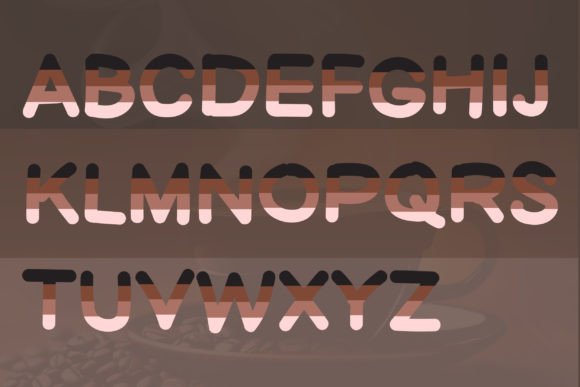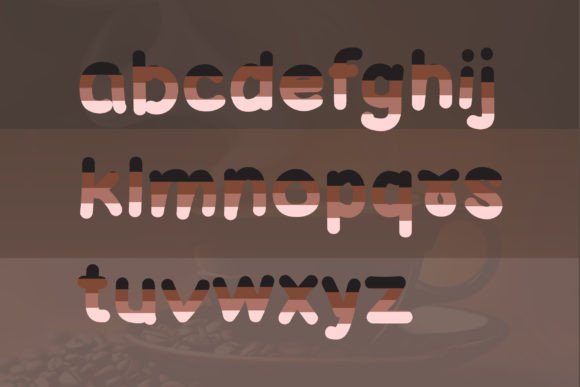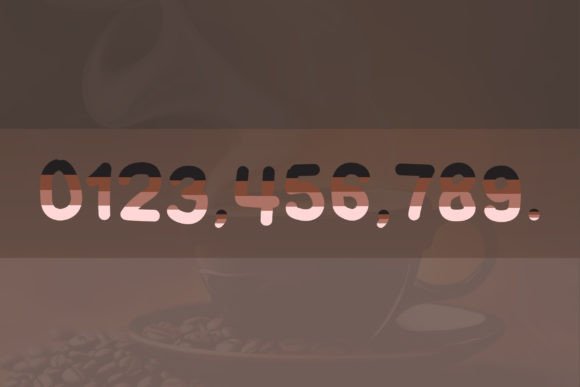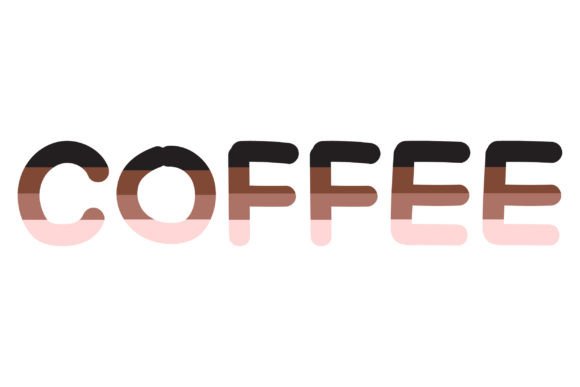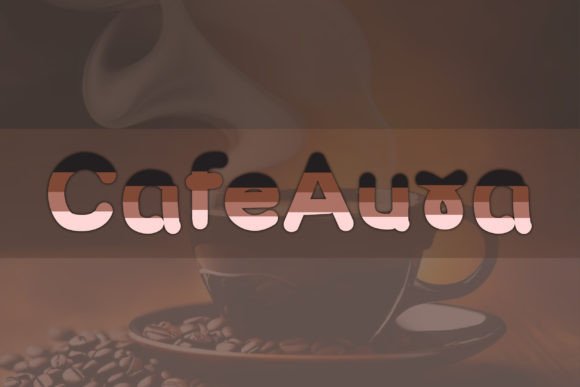
Introducing CafeAura: The Cozy Font that Brews Warmth and Character
Imagine sipping on a rich, velvety cup of coffee on a lazy morning, feeling the warmth spread through your hands and the comfort it brings to your soul. That’s exactly what CafeAura, a thoughtfully crafted font by designer Uzairr, aims to evoke. This artistic creation is not just a typographic innovation but an emotional experience, designed to infuse your written pieces with a sense of coziness and charisma.
The Inspiration Behind CafeAura
CafeAura’s foundational concept revolves around love – simple, yet profound. The font’s design is inspired by the universally cherished moments of sipping a cup of coffee. Just as a favorite brew can range in color from deep browns to creamy whites and rich creams, CafeAura’s palette mirrors this delicious spectrum. The result is a font that doesn’t just look good on paper; it feels good, too.
Design and Features
Crafted with love and precision using Fontself, CafeAura boasts a unique blend of elegance and warmth. Its characters are designed to carry a sense of fluidity and smoothness, reminiscent of the velvety texture of a well-made coffee. Whether you’re working on a branding project, a packaging design, or simply crafting a heartfelt letter, CafeAura adds a touch of personality and warmth to your text.
Key Features of CafeAura:
- Unique and Artistic Design: CafeAura’s distinctive style sets it apart from more conventional fonts, offering a fresh and creative approach to typography.
- Warm and Inviting: The font’s design elements evoke a sense of comfort and coziness, perfect for projects that aim to connect with the audience on a personal level.
- Versatile: Suitable for a wide range of applications, from digital content and advertising to print materials and handmade crafts.
- Easy to Read: Despite its artistic flair, CafeAura maintains a high level of readability, making it practical for both short phrases and longer texts.
Using CafeAura in Your Projects
- Branding and Logos: Create a memorable brand identity with a unique and recognizable typographic style.
- Digital and Print Media: Enhance your website content, social media posts, brochures, and flyers with a touch of warmth and elegance.
- Crafting and DIY Projects: Add a personal touch to your handmade crafts, such as journals, cards, and invitations.
Why Choose CafeAura?
In a world where digital content is king, standing out can be challenging. CafeAura offers a unique opportunity to differentiate your brand or personal projects with a distinctive and engaging font. Its universal appeal, rooted in the love for coffee and comfort, ensures that your message is not just seen but also felt.
CafeAura is more than just a font; it’s an experience. It’s about capturing the simple pleasures in life and expressing them through design. With CafeAura, you don’t just write; you brew a story, rich and inviting, that resonates with your audience.